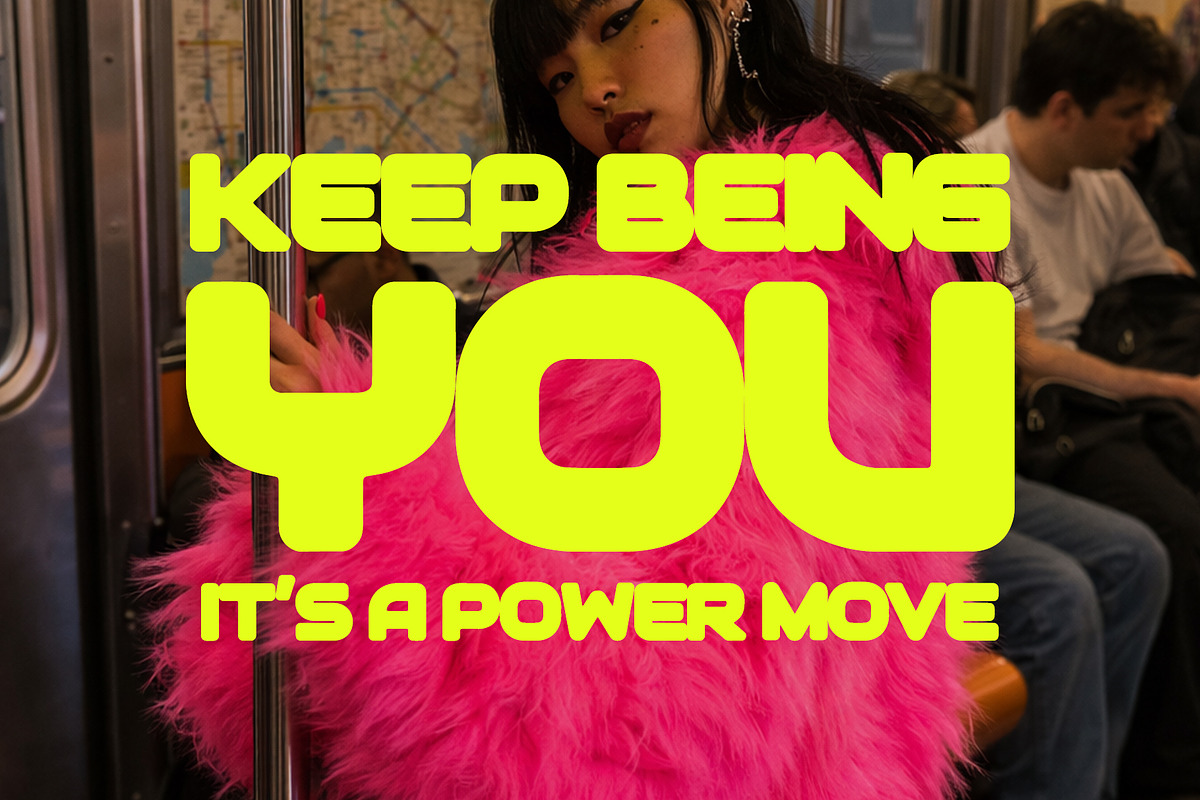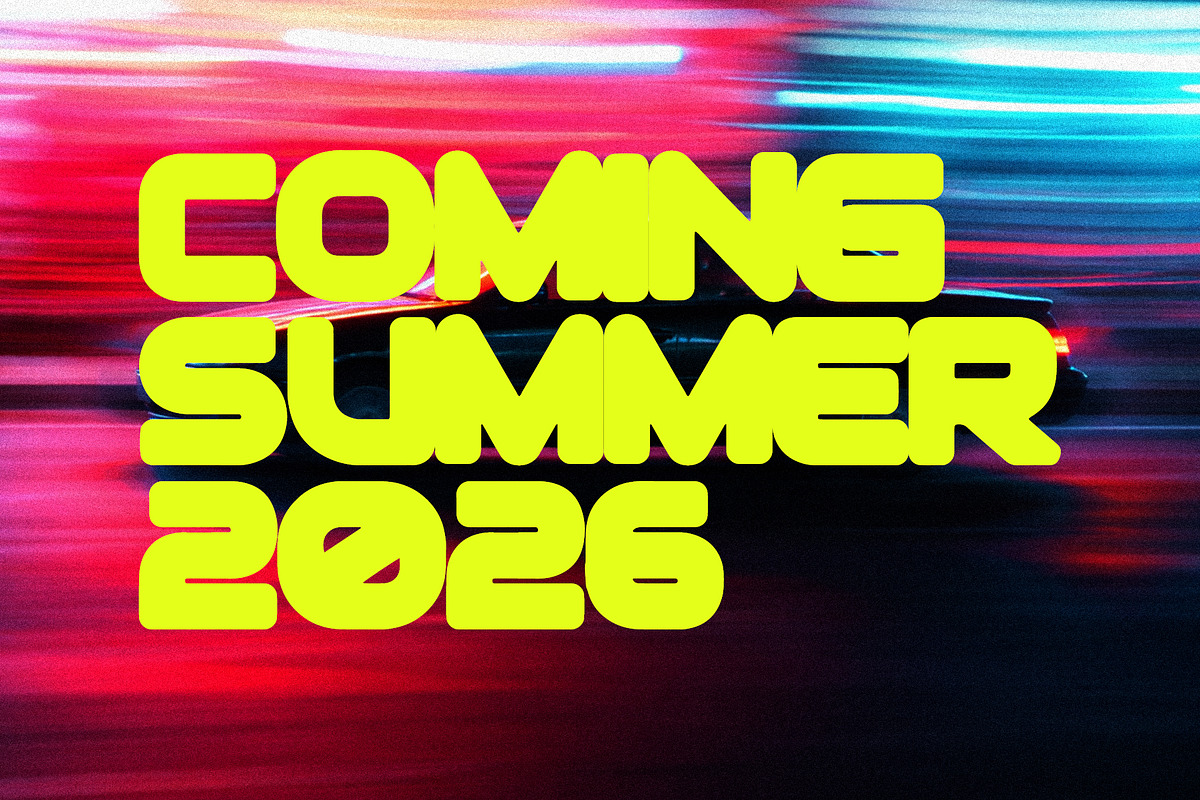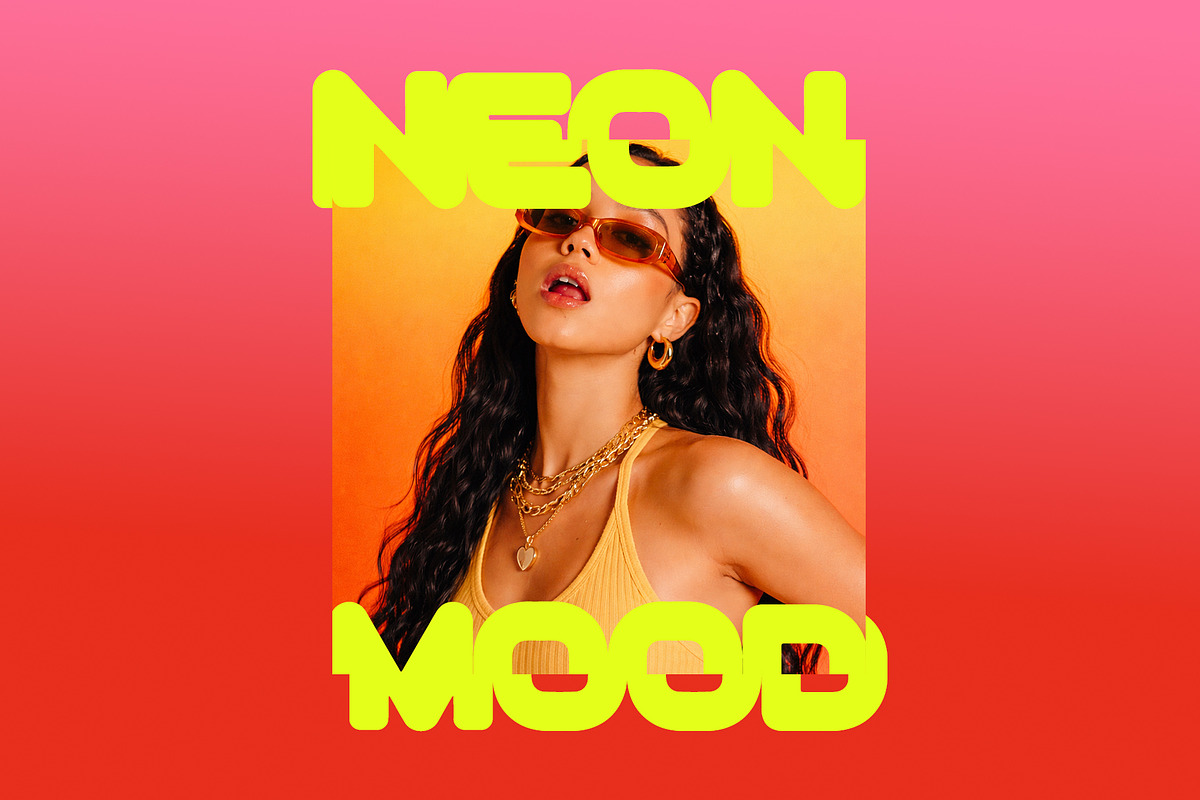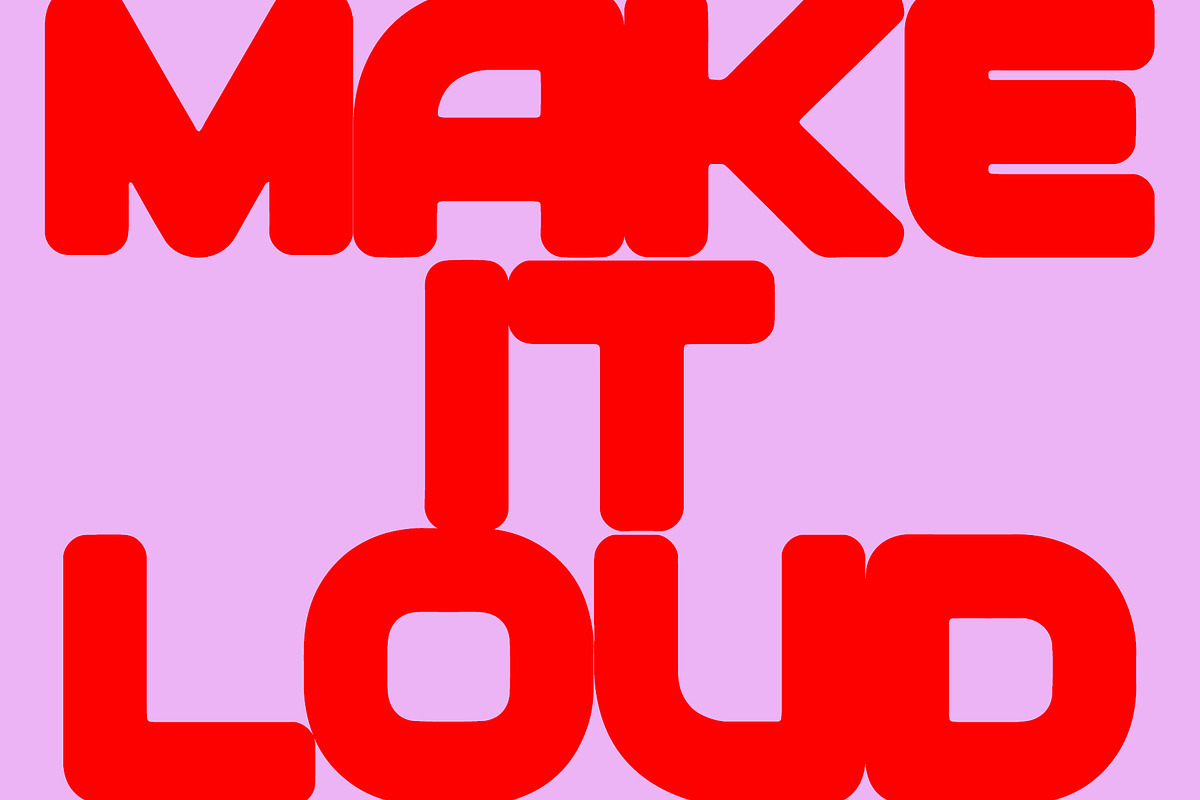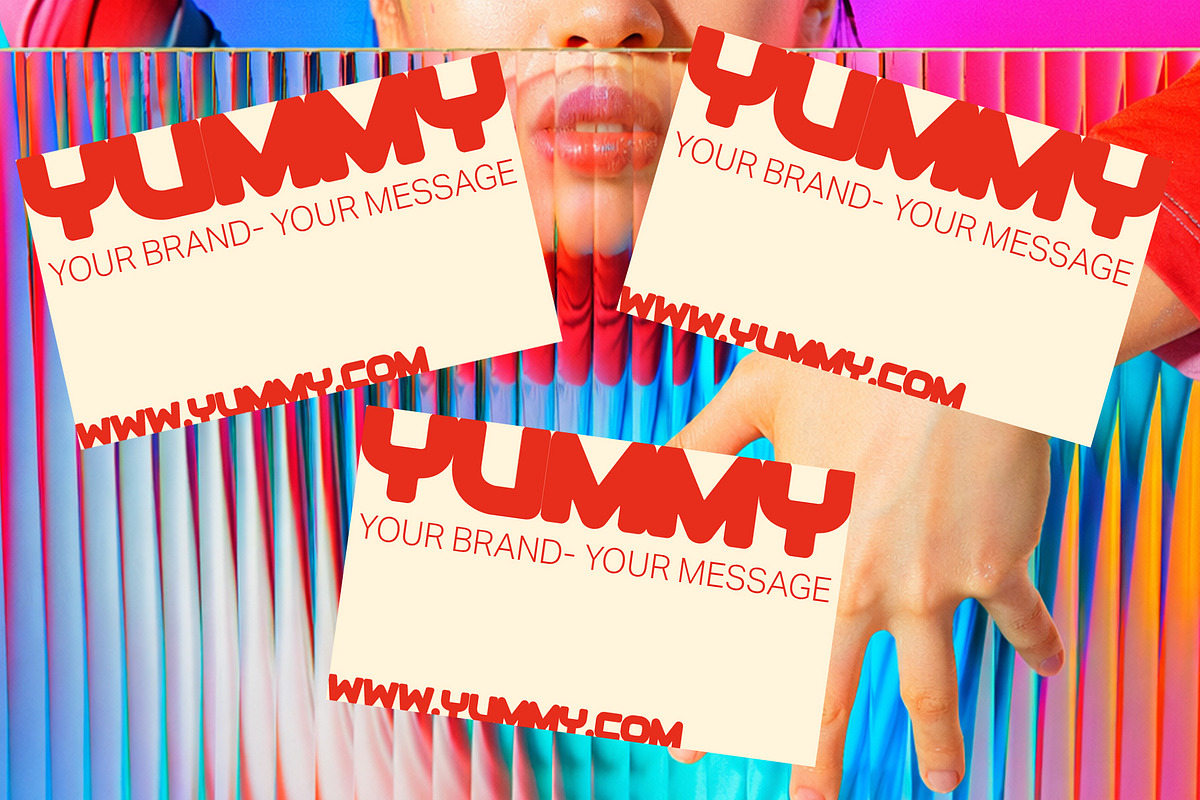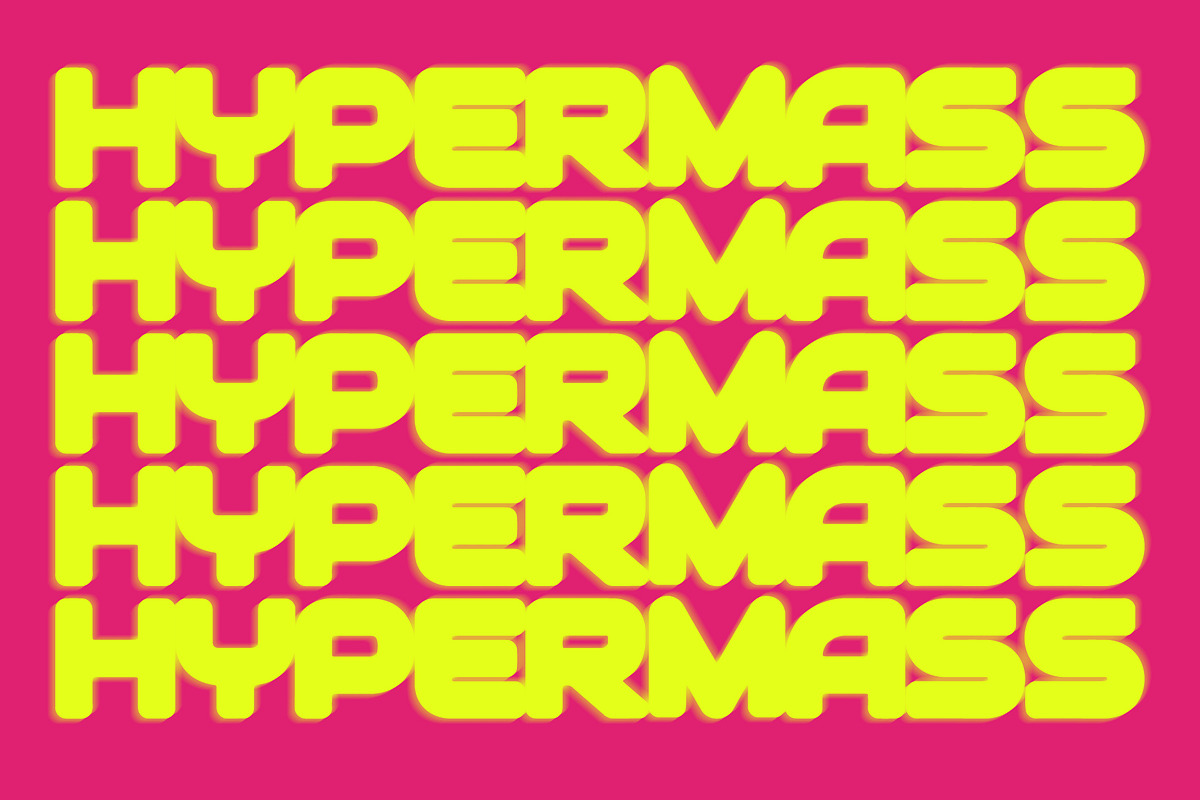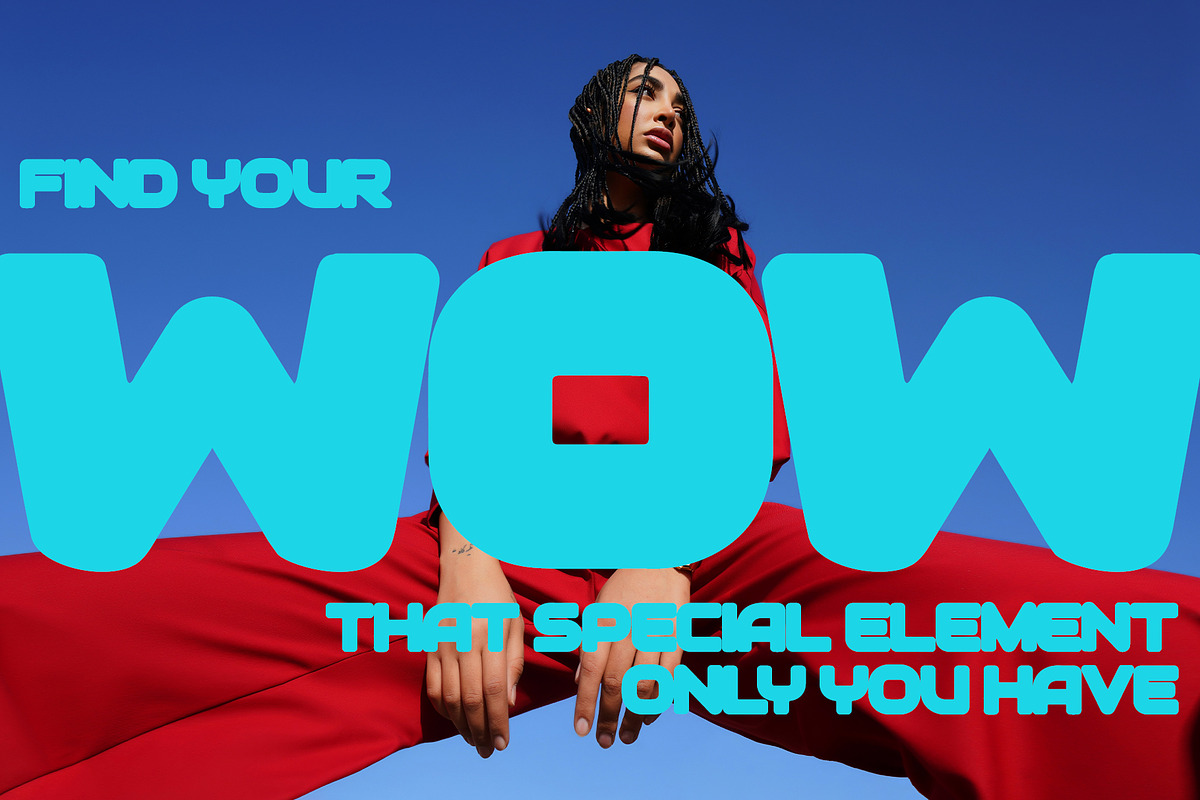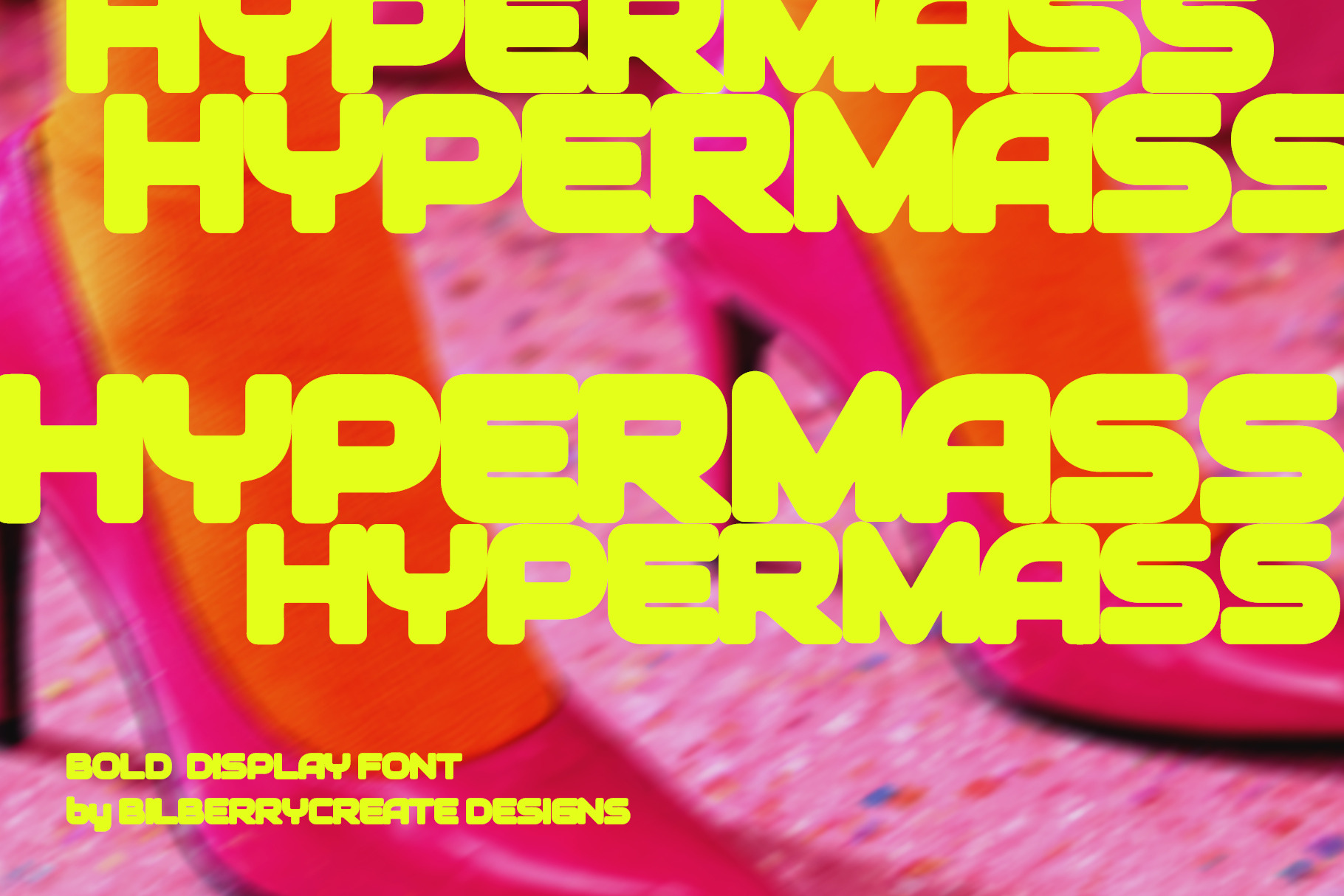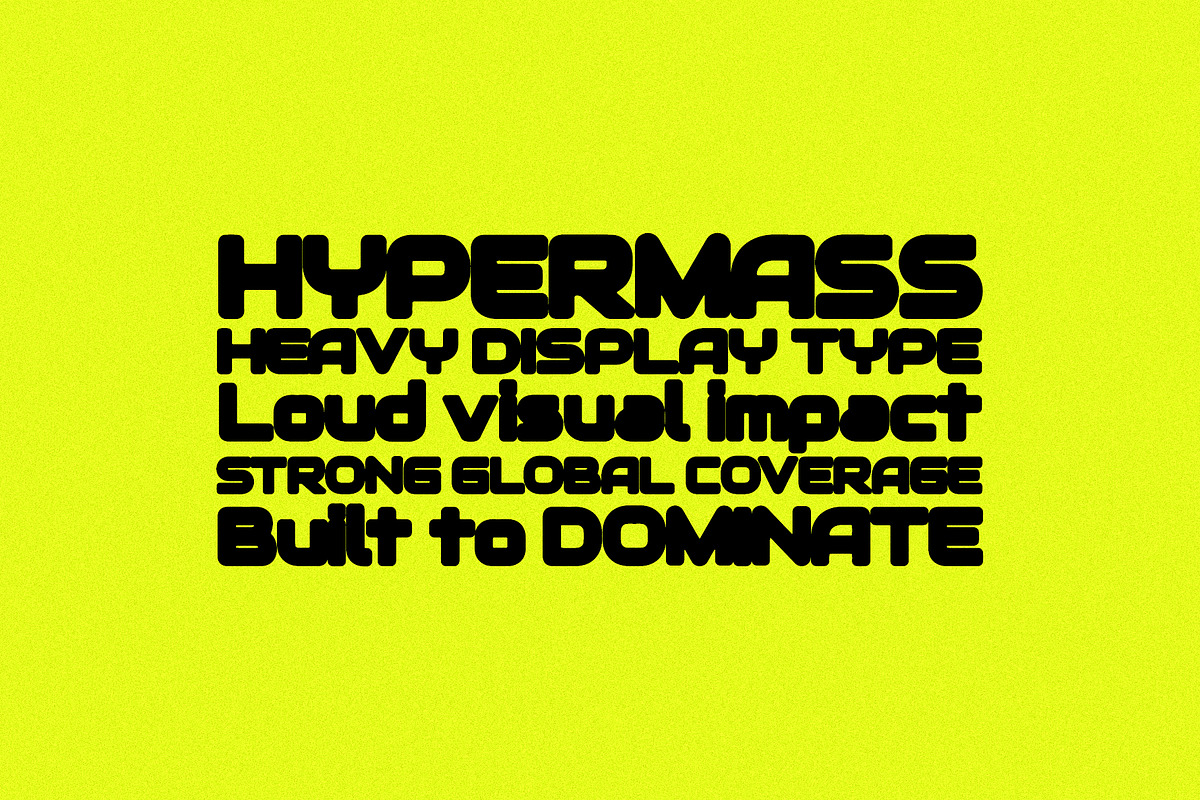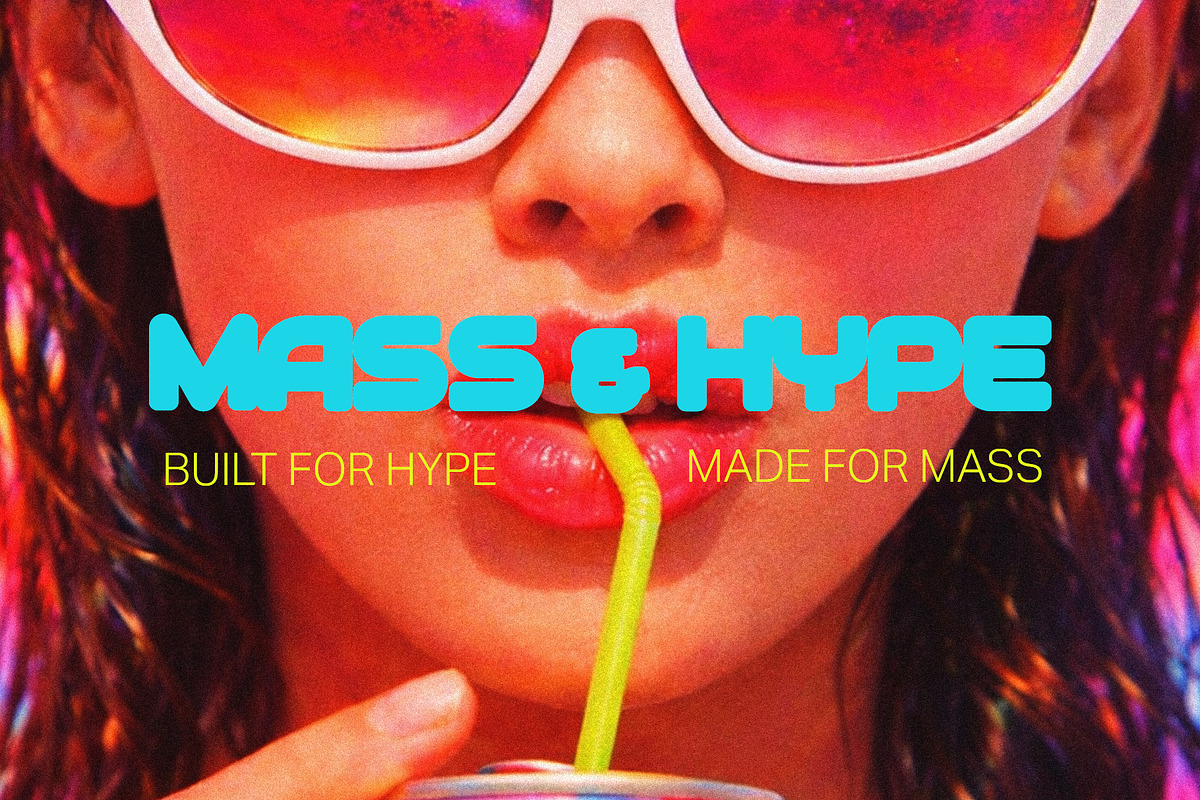
Hypermass Bold Display Font
Hypermass is a bold display font designed to make a strong visual impact. Its thick, rounded letterforms create a powerful and modern look that immediately grabs attention. The soft curves combined with massive proportions give the typeface a playful yet confident character.
This font works best in large sizes and is perfect for designs where typography becomes the main visual element. Hypermass is great for posters, branding, packaging, headlines, social media graphics, album covers, and eye-catching promotional designs. The bold geometric shapes make it ideal for modern, pop, and experimental visual styles. Whether you’re creating vibrant posters, fashion graphics, or digital content, Hypermass adds energy and personality to your designs.
Hypermass Font Features: